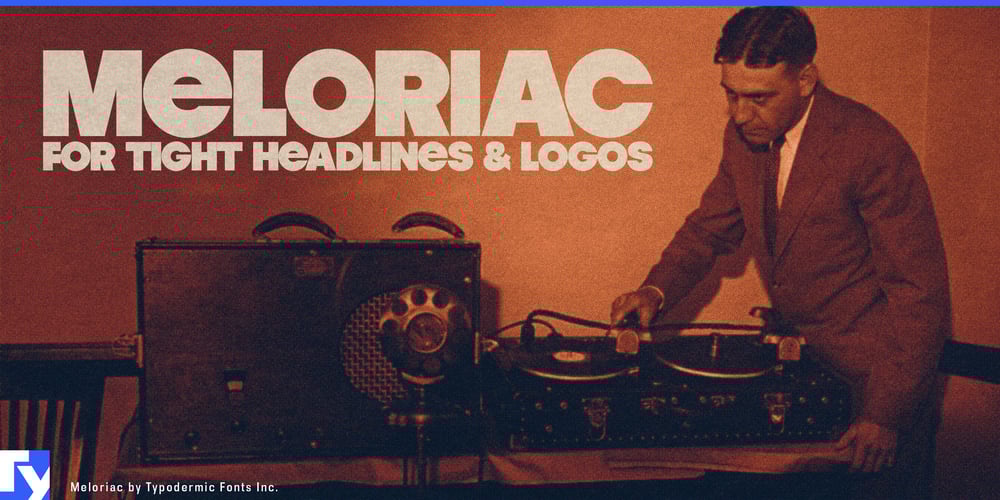
Meloriac Font Family was designed by Ray Larabie and published by Typodermic. Meloriac contains 1 styles and family package options. Enter the ring with Meloriac, a unicase display typeface that packs a visual punch with its unapologetically bold presence. This typeface doesn’t just make a statement—it shouts it from the rooftops with strokes so thick and gaps so tight, it seems to defy the very laws of typography.Drawing inspiration from the muscular forms of Futura Extra Bold and Avant Garde Gothic Bold, Meloriac takes their legacy and cranks it up to eleven. Its extra-heavy weight creates letterforms so dense they appear to be carved from solid blocks, leaving only the barest slivers of negative space. This intense visual density makes Meloriac a powerhouse for attention-grabbing headlines and logos that refuse to be ignored. Meloriac’s minimalist design belies its versatility. Its robust characters compress effortlessly into tight layouts, creating headlines that dominate the page with sheer typographic mass. For maximum impact in subheadings, let Meloriac breathe by tracking it wider—watch as it transforms from a solid wall of type into a commanding procession of letters, each one a monumental presence in its own right.But Meloriac isn’t just brawn—it’s got brains too. OpenType stylistic alternates offer filled letter variations and an alternative ampersand, giving designers the tools to fine-tune their typographic compositions. These features allow Meloriac to flex its creative muscles, adapting from ultra-modern minimalism to retro-futuristic flair with ease. Meloriac’s linguistic strength matches its visual heft. It confidently expresses itself across a vast array of writing systems, from the familiar Latin scripts to the intricate characters of Vietnamese. Greek philosophers and Cyrillic authors alike find their voices amplified through Meloriac’s bold forms, ensuring your message resonates with unmatched power across cultures and languages.Choose Meloriac when you need typography that doesn’t whisper, doesn’t speak, but thunders. It’s more than a font—it’s a typographic force of nature, ready to give your designs the heavyweight impact they deserve. In the world of display typefaces, Meloriac stands as the undisputed champion, daring viewers to look away… and knowing they can’t.